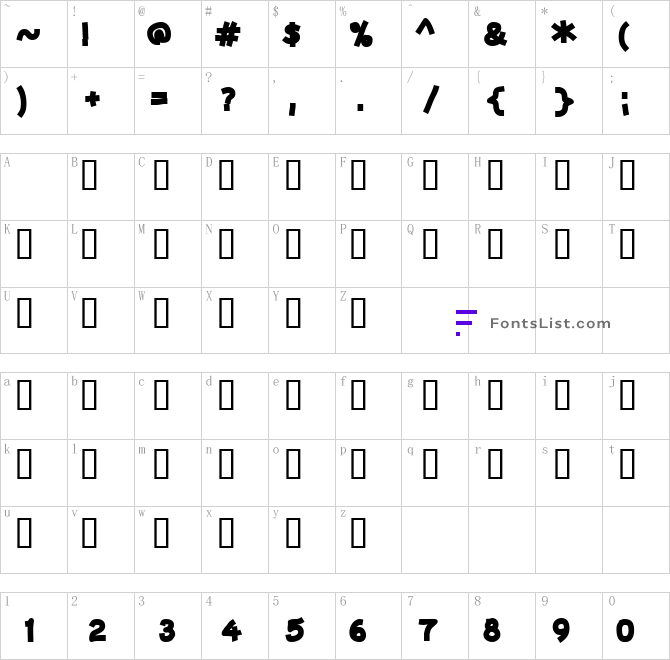
- Font Name:Camping Bold
Camping-Bold.ttf is a very beautiful artistic font, Camping-Bold.ttf is widely used in the design and printing of various books and pictures,Camping-Bold.ttf has a strong visual impact,Camping-Bold.ttf is a commonly used font in newspapers, magazines and books, and is used in posters, e-commerce Poster design, store design, logo design, font design and other fields.Camping-Bold.